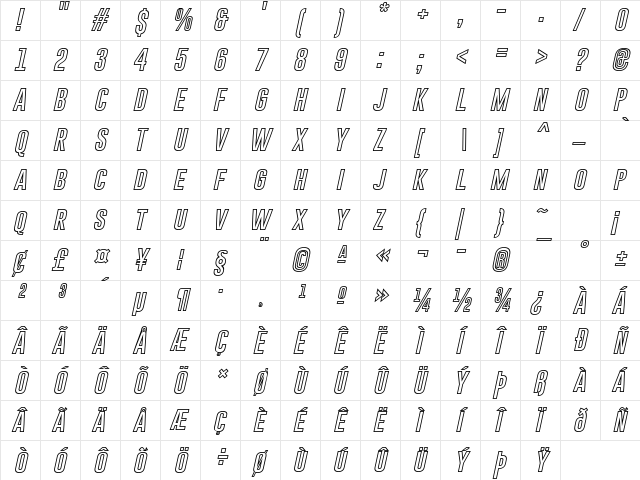
Gobold Hollow Bold Italic Font Preview
| Designer | Situjuh Nazara |
Design Context for Gobold Hollow Bold Typeface
Gobold Hollow Bold takes a measured approach to typography — its balanced proportions and neutral character make it a reliable workhorse for both digital and print work. The slanted form adds forward momentum and visual energy. Its bold stroke weight gives it real presence on the page.
Pro Tip: Try Gobold Hollow Bold for annotation and caption copy alongside an upright companion — the contrast in angle creates a dynamic but ordered typographic system.